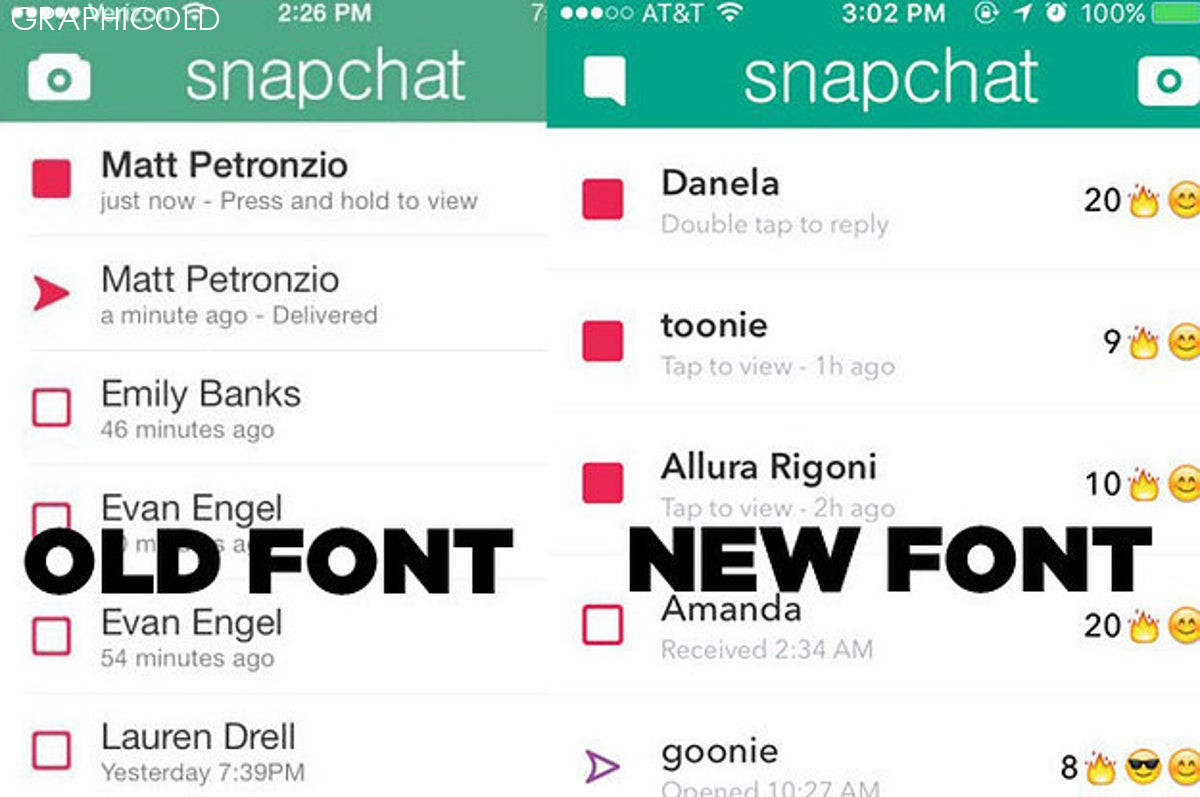
snapchat font: The Secret Behind Its Success
Snapchat is one of the most popular social media platforms in the world, with over 280 million active users. One of the things that sets Snapchat apart from other social media platforms is its unique font. The font used by Snapchat is a custom-made font, which is designed specifically for the app. In this article, we will explore the details of the Snapchat font and the role it plays in the app’s success.
The Snapchat font is a custom-made font, designed by Snapchat’s in-house design team. The font is called Snapchat Font, and it is a sans-serif font. The design of the font is simple and clean, which makes it easy to read and recognize.
One of the reasons why Snapchat Font is so effective is its unique style. The font is designed to look like it has been hand-drawn, which gives it a personal touch. The font is also slightly curved, which makes it more playful and fun.
Another reason why Snapchat Font is so successful is its consistency. The font is used throughout the app, from the user interface to captions and filters. This consistent use of the font helps to create a cohesive and recognizable brand identity for Snapchat.
The Snapchat Font has also become a cultural phenomenon, with users creating their versions of the font and sharing them on social media. This has helped to create buzz around the app and has contributed to its success.
In conclusion, the Snapchat Font is one of the key factors behind Snapchat’s success. Its unique style, consistency, and cultural significance have made it one of the most recognizable fonts in the world. The font has helped to create a cohesive brand identity for Snapchat and has contributed to the app’s popularity.